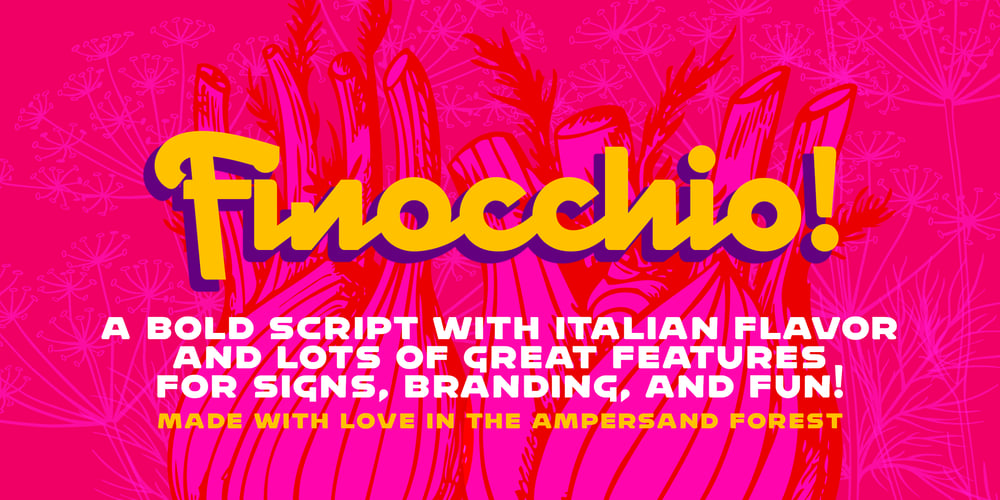
Finocchio
Finocchio Font Family was designed by DC Scarpelli and published by The Ampersand Forest. Finocchio contains 1 styles and family package options. Finocchio (yes, we know — wink) has the playful, round shapes of a French Ronde with the sharp angles of Italian Futurism. It’s a bold, fun, excellent branding face — wherever you need some gusto or brio or forza!Finocchio comes with a large number of ligatures for fluidity. It also comes with a solid, readable set of non-script small caps, so all you need for that sign is one coordinated font! It also comes with loads of fun alternates! Finocchio is made with love in The Ampersand Forest.